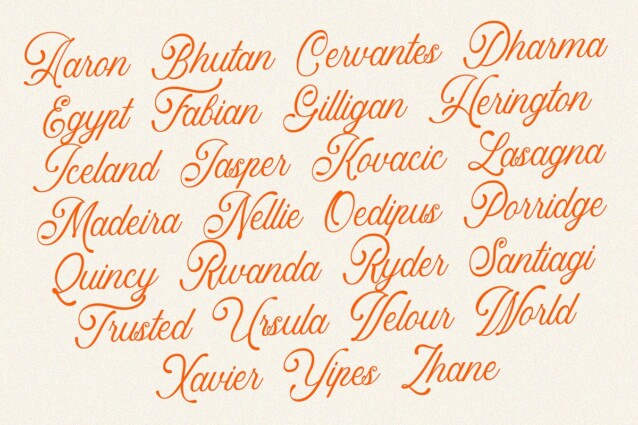
Restrike Font
Restrike Font is a bold, elegant & fun vintage script font crafted & designed by Arendxstudio. Its versatile design, extensive character set, and customization options make it suitable for a wide range of high-end design projects. Whether used for wedding invitations, luxury branding, or elegant packaging, “Restrike” adds a touch of class and elegance, ensuring your designs are both visually stunning and memorable.